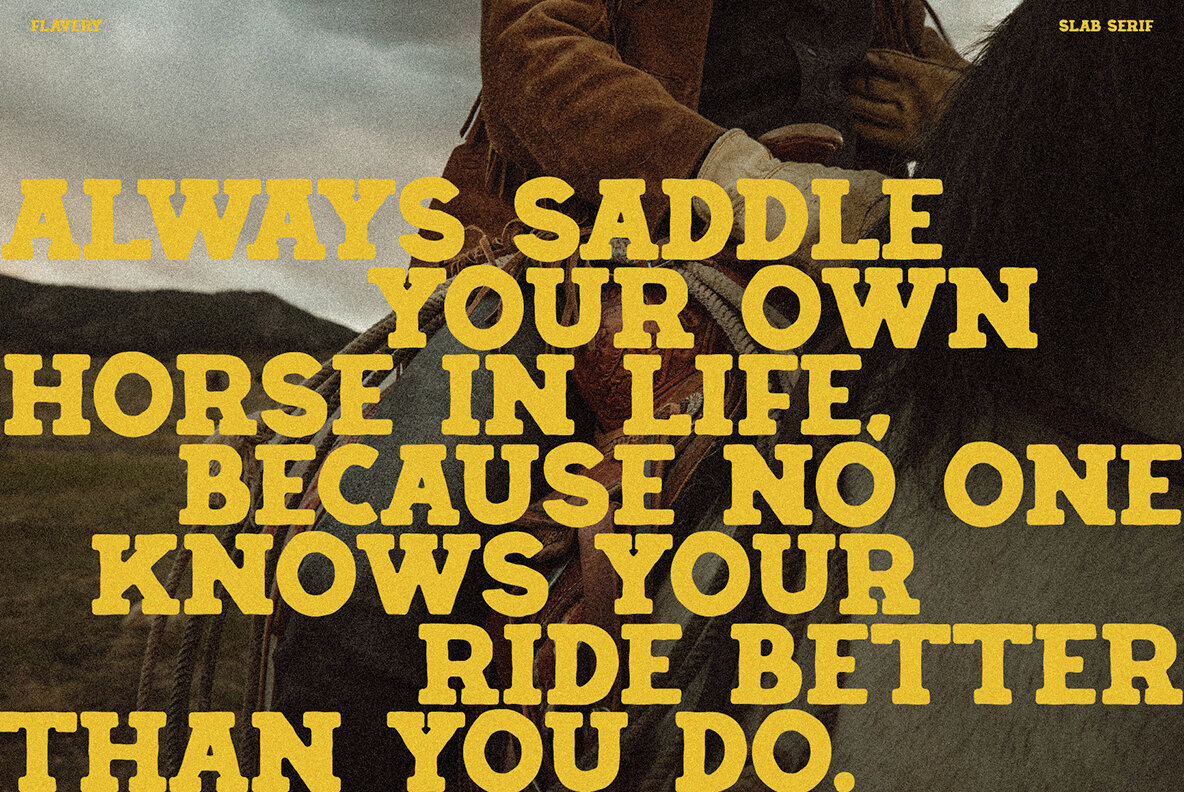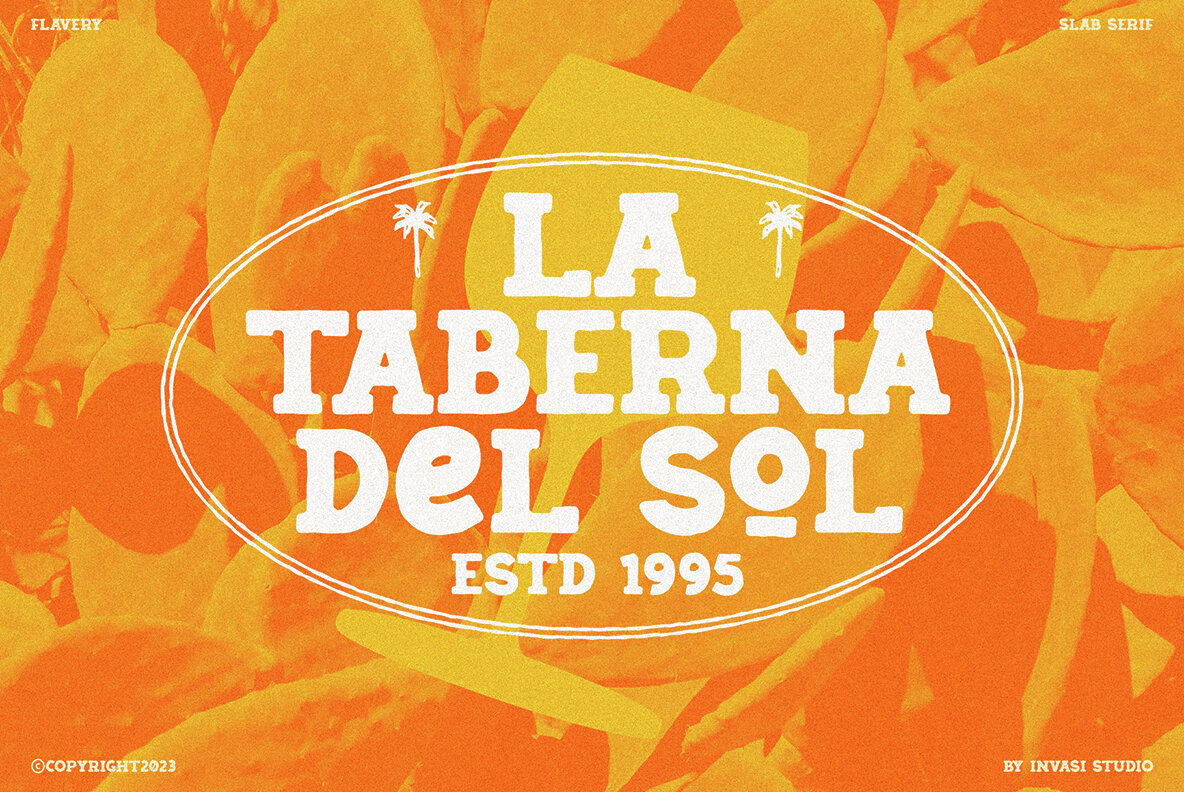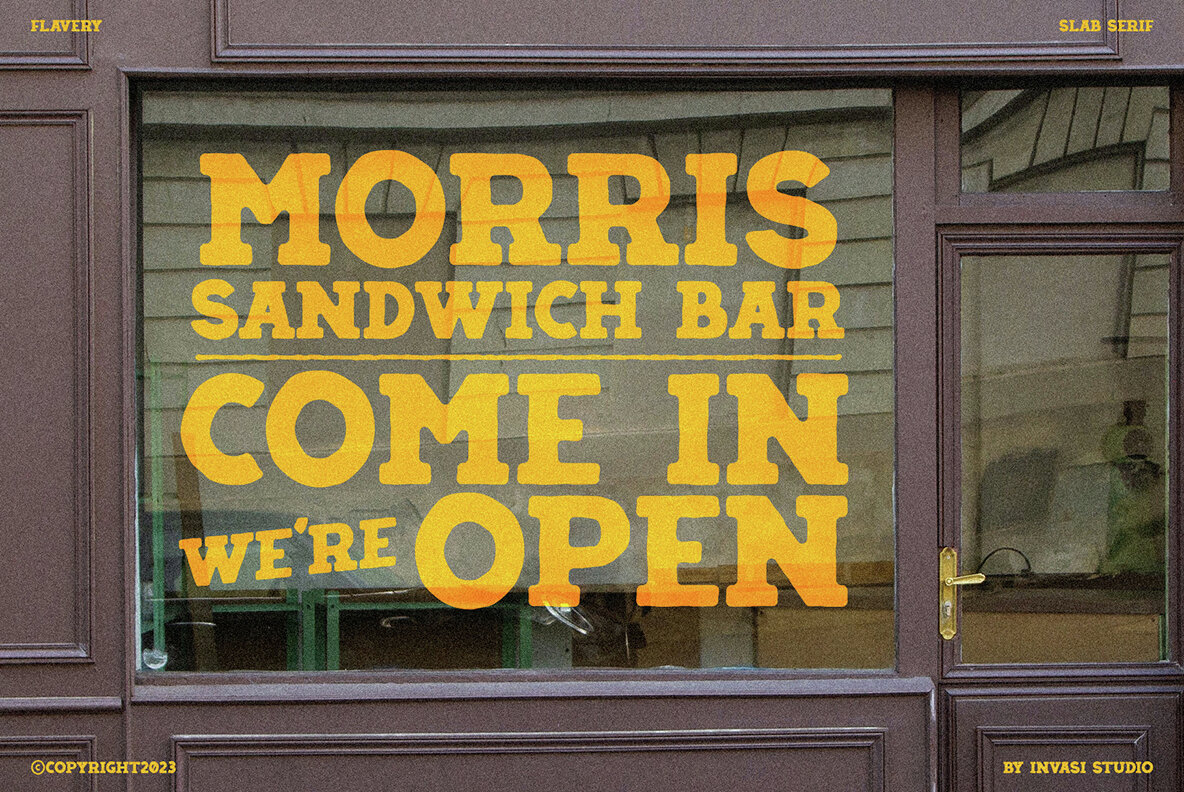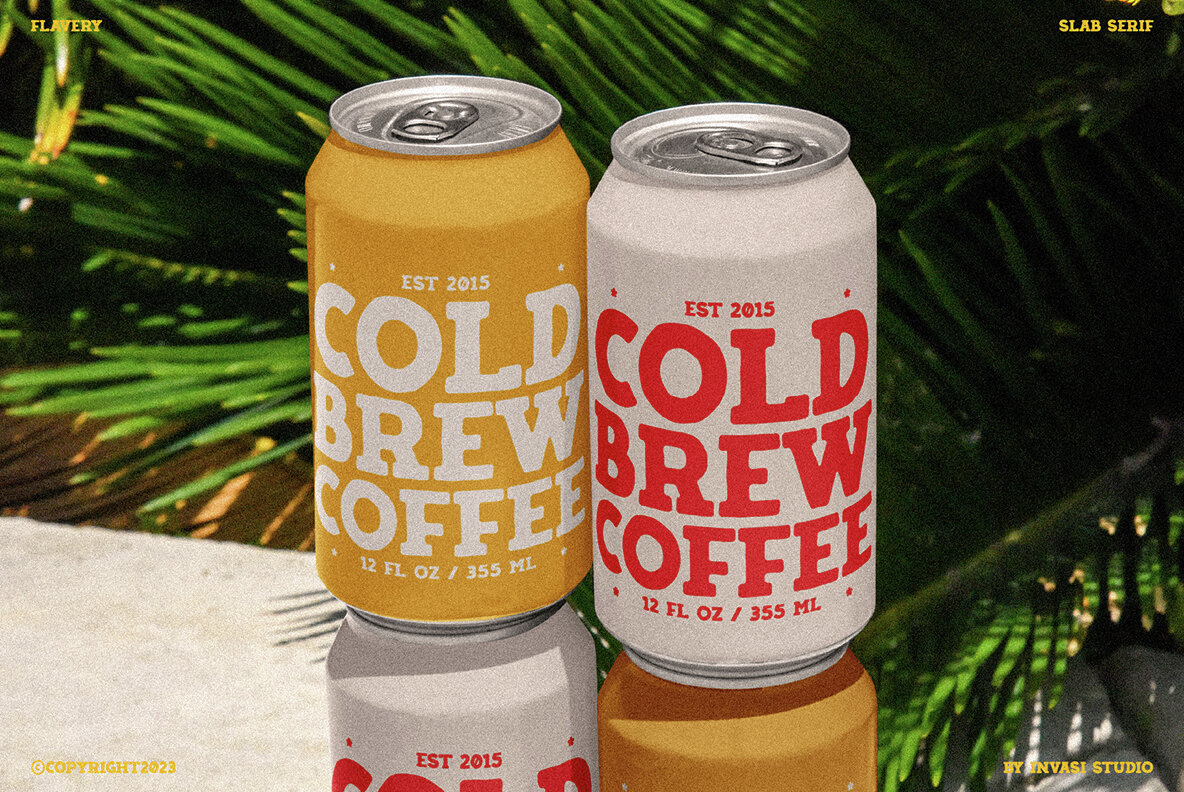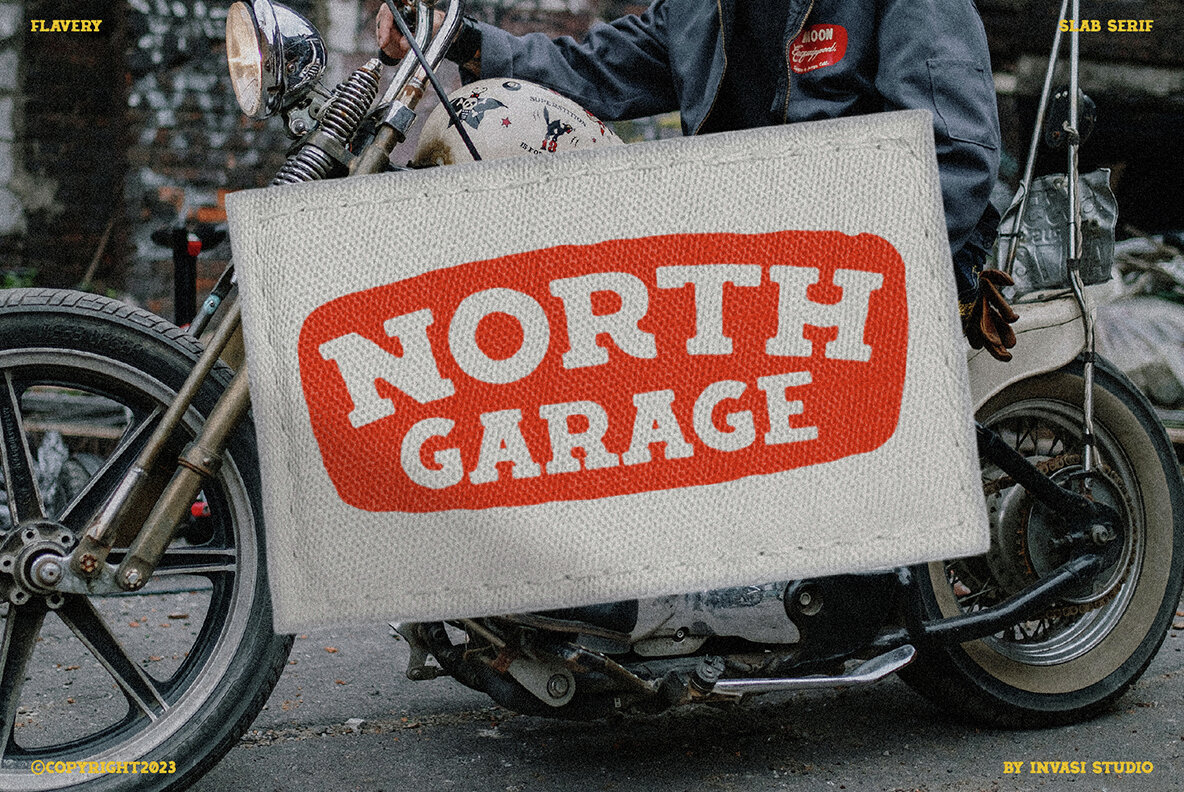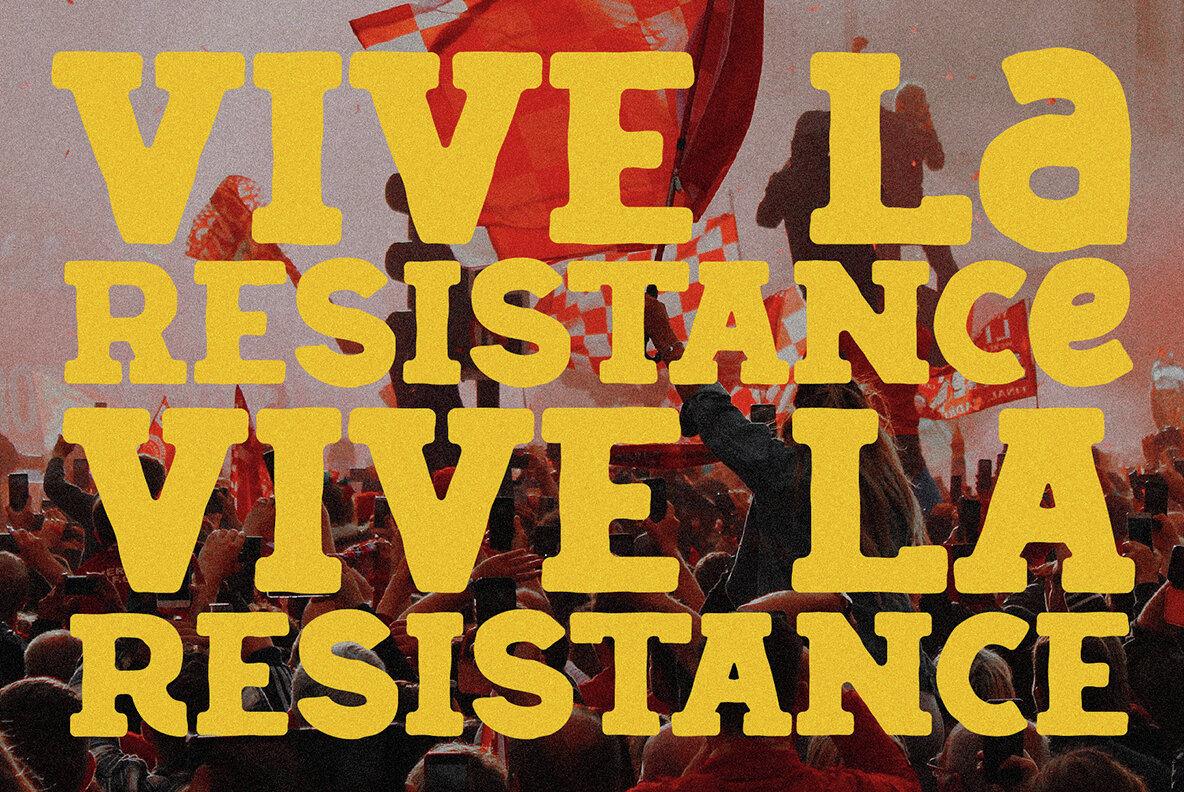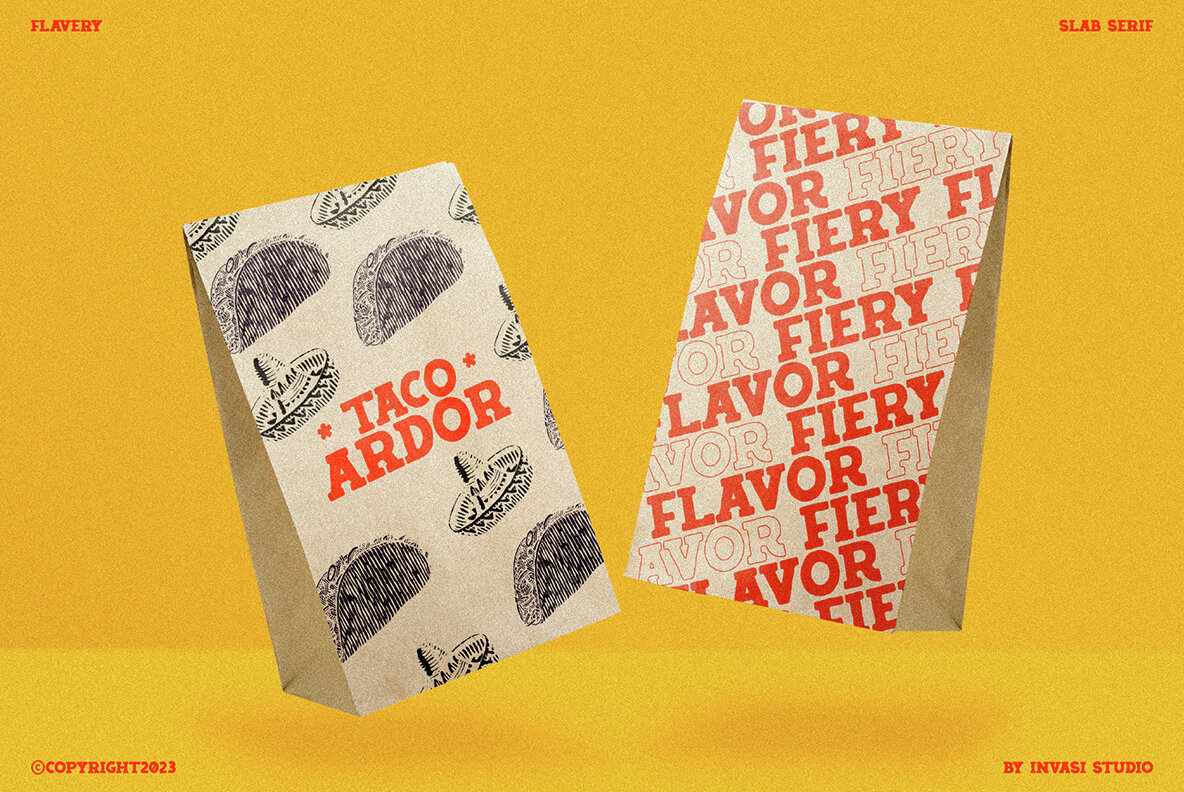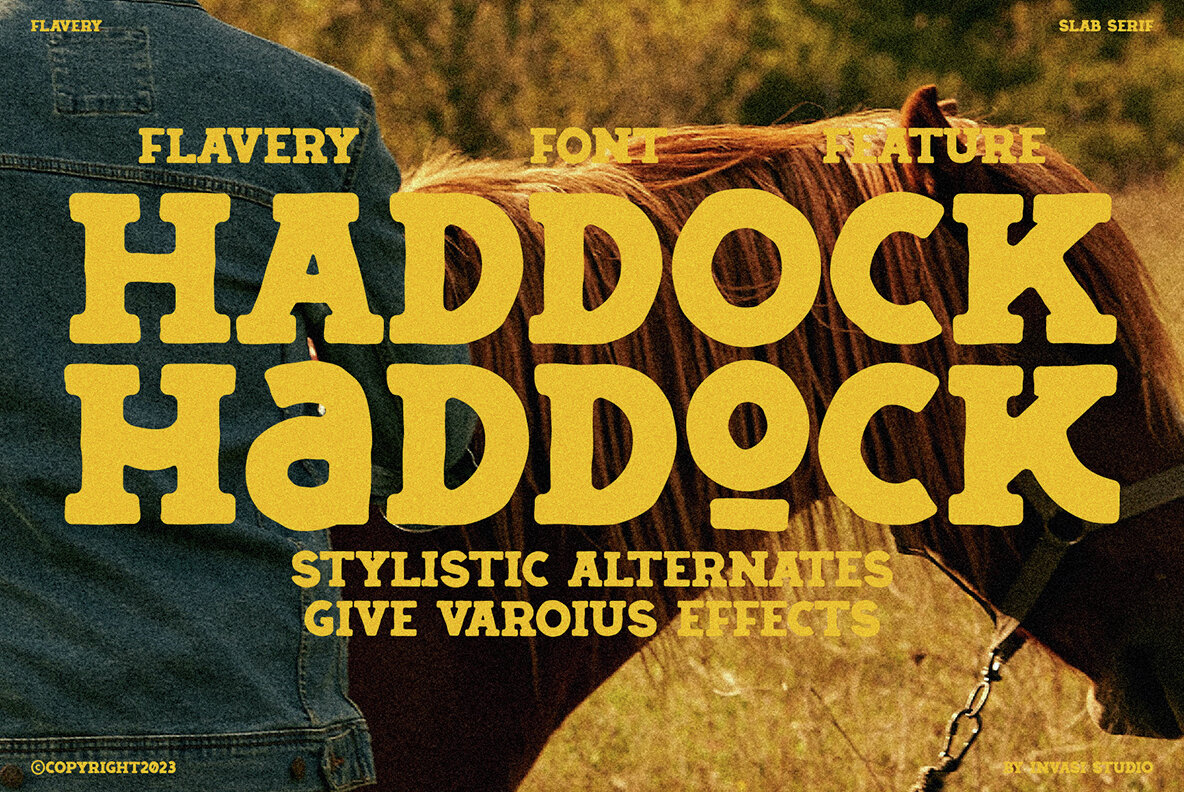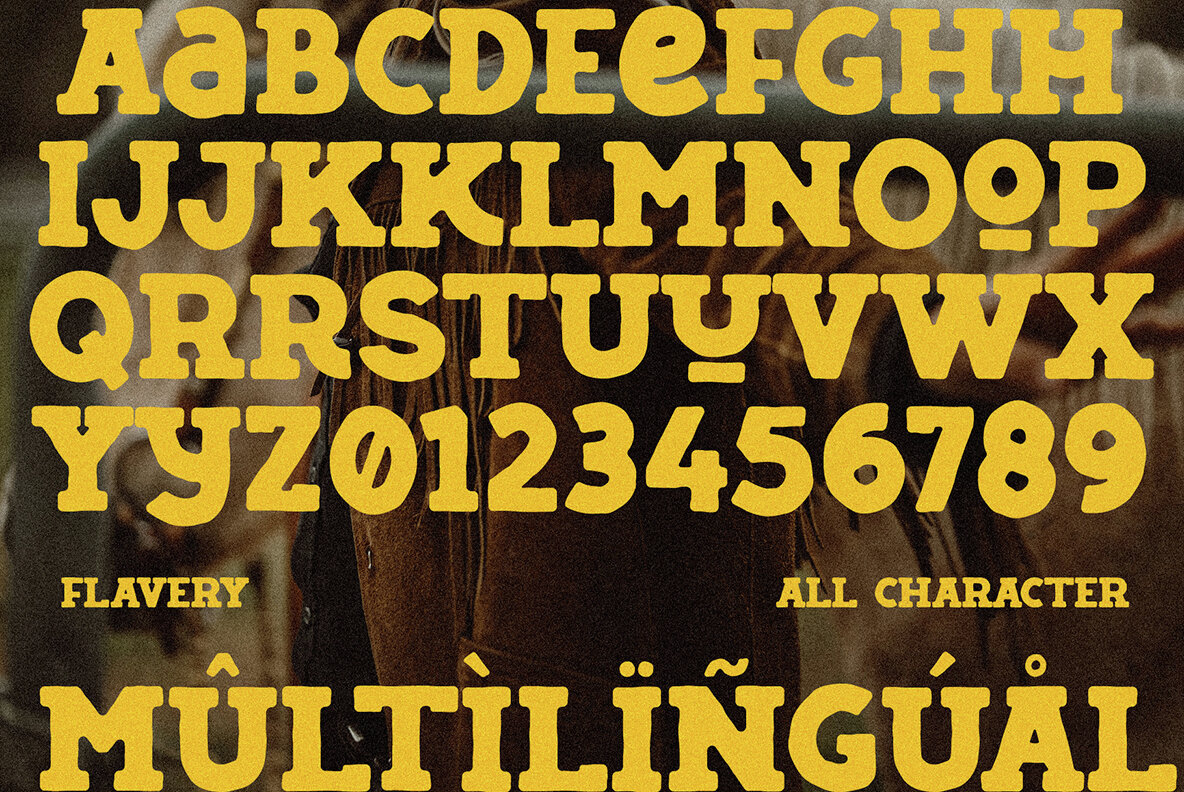
Flavery Font
Flavery is a vintage slab serif font that is perfect for creating a rustic and rugged aesthetic with its hand-drawn slab serif style. This font is ideal for evoking the old-fashioned cowboy era or the classic vintage vibes era and is great for display purposes. Flavery features alternate glyphs and supports multilingual Latin characters to enhance your designs with a touch of old-world charm. Its bold and distinctive style will make your designs stand out and give them a unique character. Whether you're working on a poster, packaging, or branding project, Flavery will add a touch of vintage authenticity to your work.